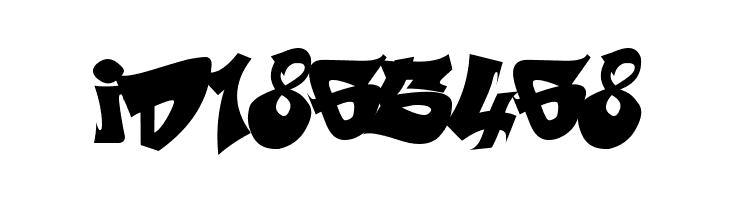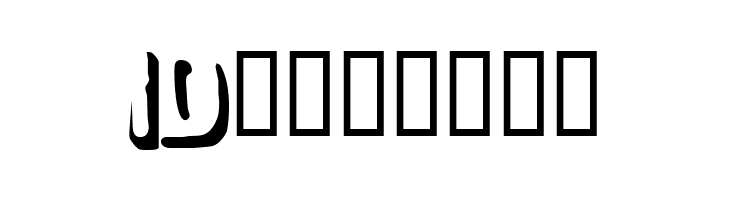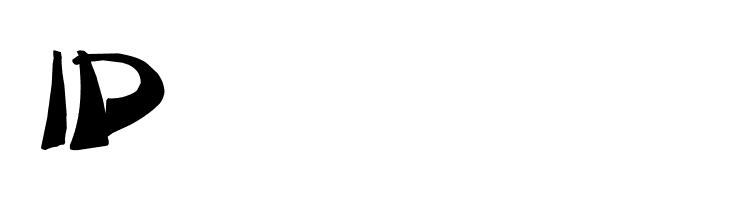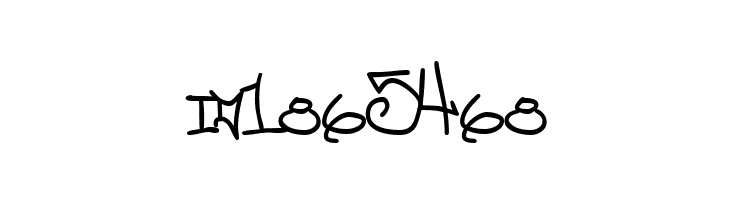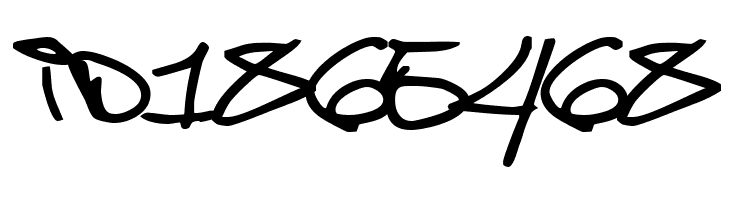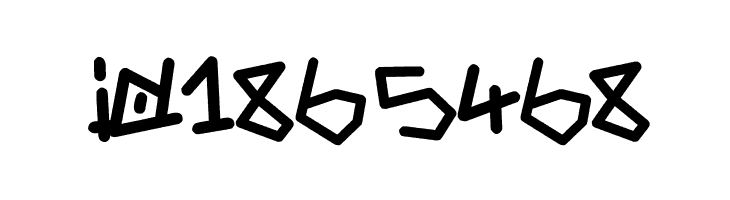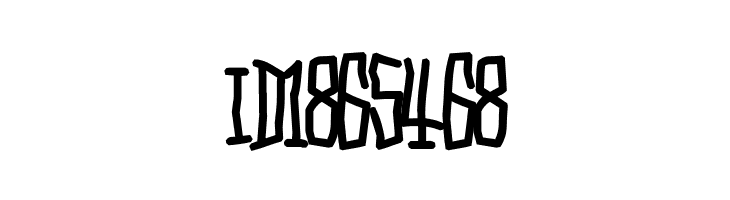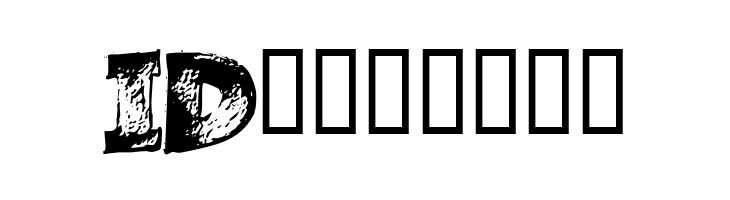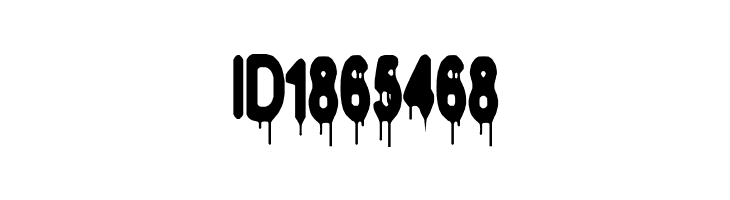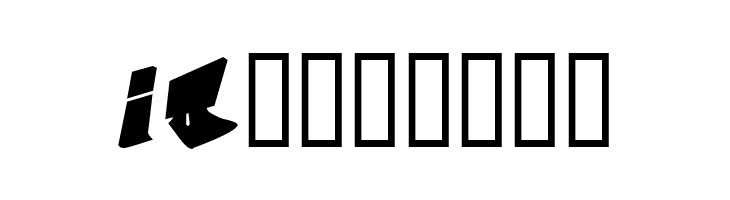
A bold, graffiti-inspired font with sharp, angular lines and dynamic shapes.
A bold, abstract font with jagged, irregular edges and a graffiti-like style.
A bold, graffiti-inspired font with sharp, angular edges and dynamic strokes.
A bold, graffiti-inspired font with sharp angles and urban flair.
A bold, graffiti-inspired font with angular, geometric shapes and a rebellious aesthetic.
A bold, edgy, hand-drawn decorative font with a graffiti-like style.
A bold, dripping font with a graffiti-inspired style.
A bold, graffiti-inspired font with sharp, angular edges and dynamic styling.